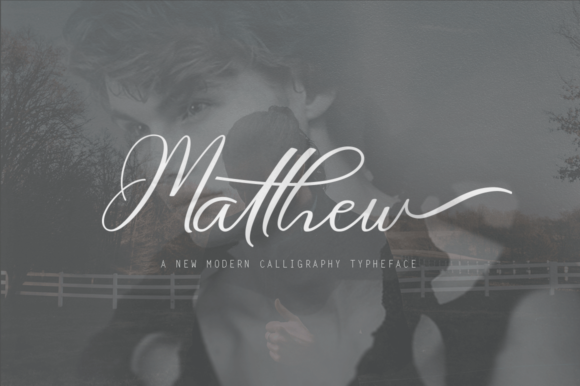
Matthew Font
About Matthew Font
Matthew is a gorgeous calligraphy font, combining the sensibility of both modern and classic cursive script. This is a great font for use in special event works, and comes with alternates for unique typography and branding opportunities.